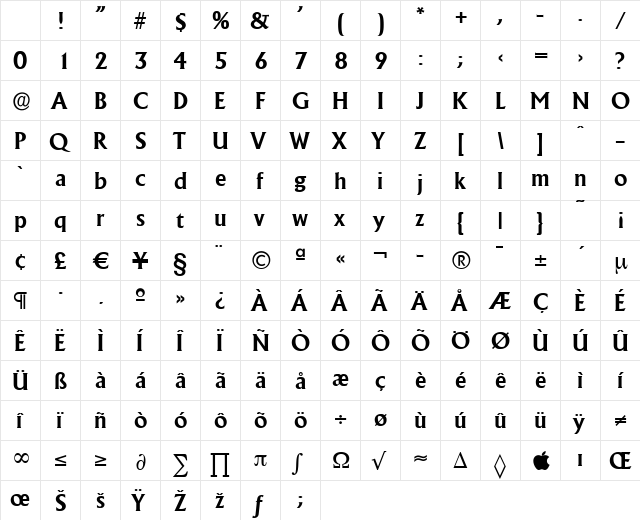
Complete JacobBecker Bold glyph index. Displaying only characters natively supported by JacobBecker Bold font.
JacobBecker is a composed and adaptable typeface that performs quietly and consistently across a wide range of design contexts. Its bold stroke weight gives it real presence on the page.